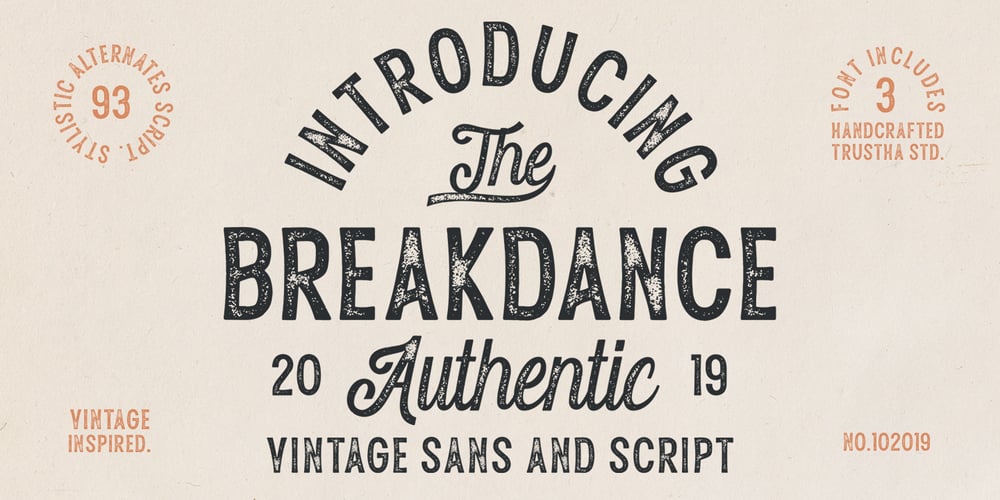
Breakdance
Breakdance font
Breakdance Font Family was designed by Bagas Ardiatma and published by Trustha. Breakdance contains 3 styles and family package options. Breakdance is a vintage font duo. Combination of sans and script with sharp textures making all your creative projects getting a vintage and authentic impression!